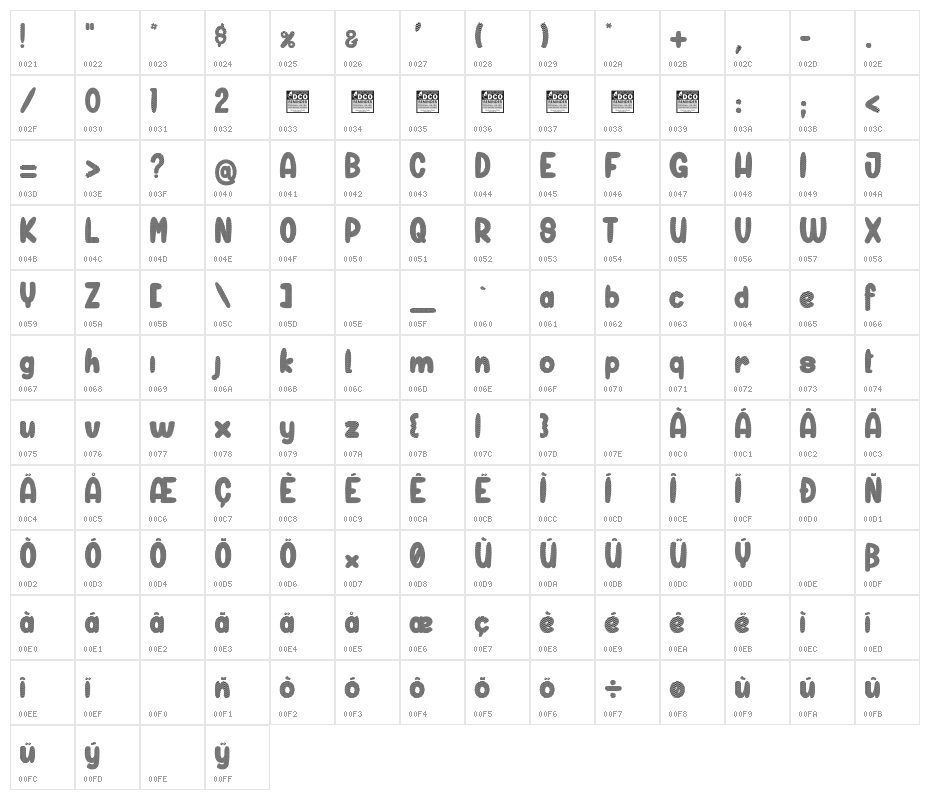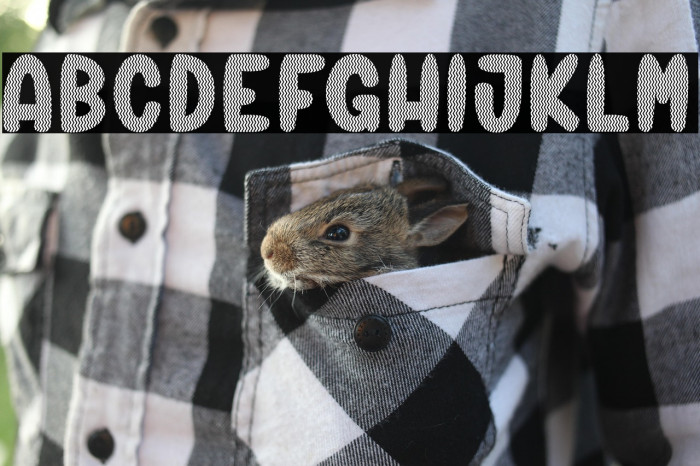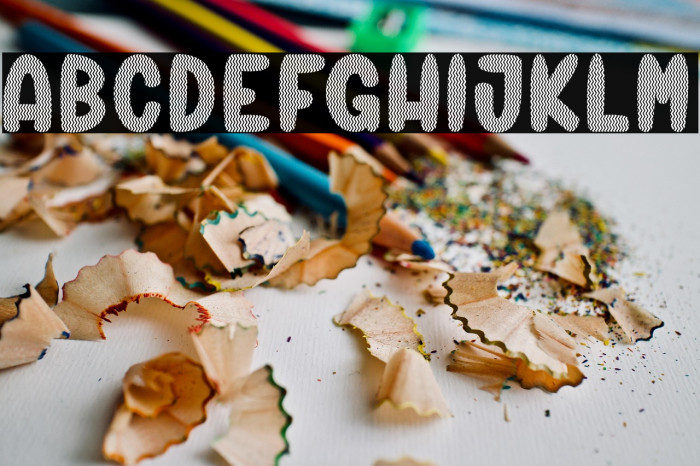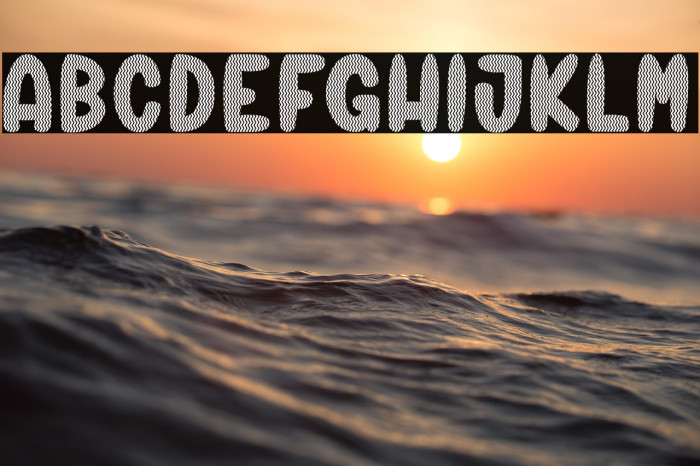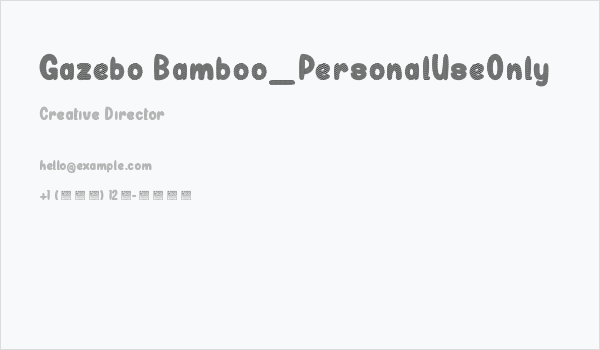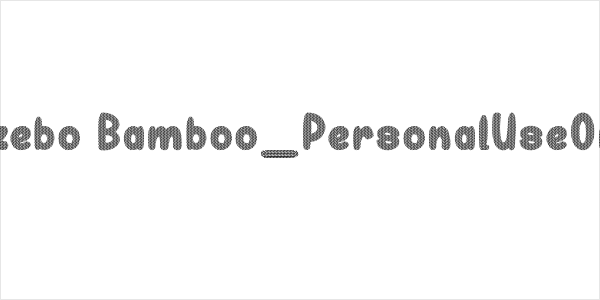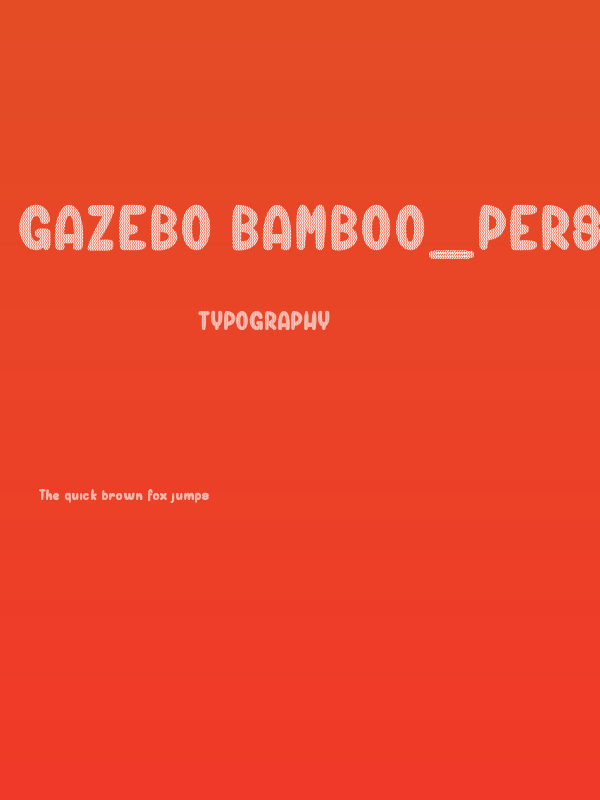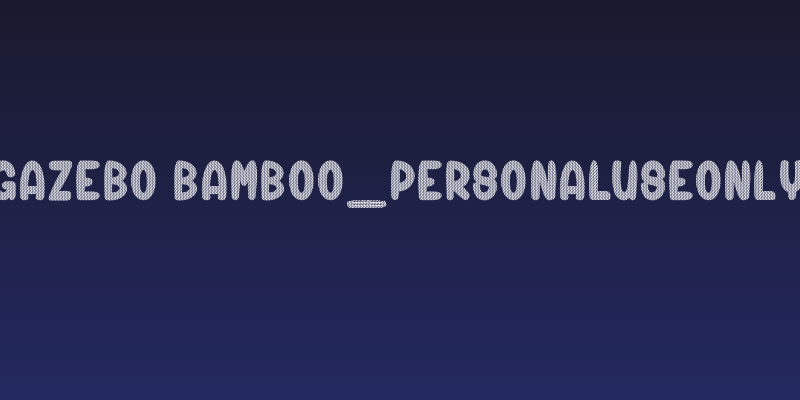
Gazebo Bamboo_PersonalUseOnly Font
Gazebo Bamboo_PersonalUseOnly Description
This font features a unique, textured pattern that resembles a woven or bamboo-like appearance. The characters are bold and rounded, with a playful and decorative style. Each letter is filled with a dense, repeating pattern that adds depth and visual interest. The uppercase and lowercase letters maintain a consistent style, with the same textured fill and rounded edges. Numbers and special characters are also included, following the same design principles. This font is eye-catching and ideal for projects that require a distinctive and artistic touch.
Proposed ProjectsIdeal for posters, creative branding, artistic projects, and decorative headings.